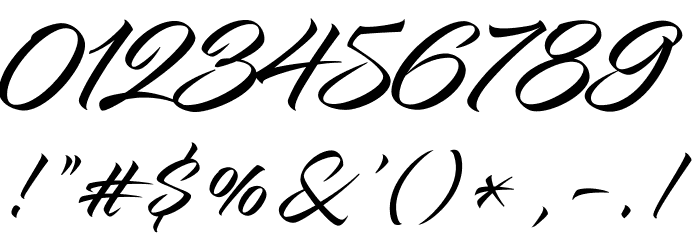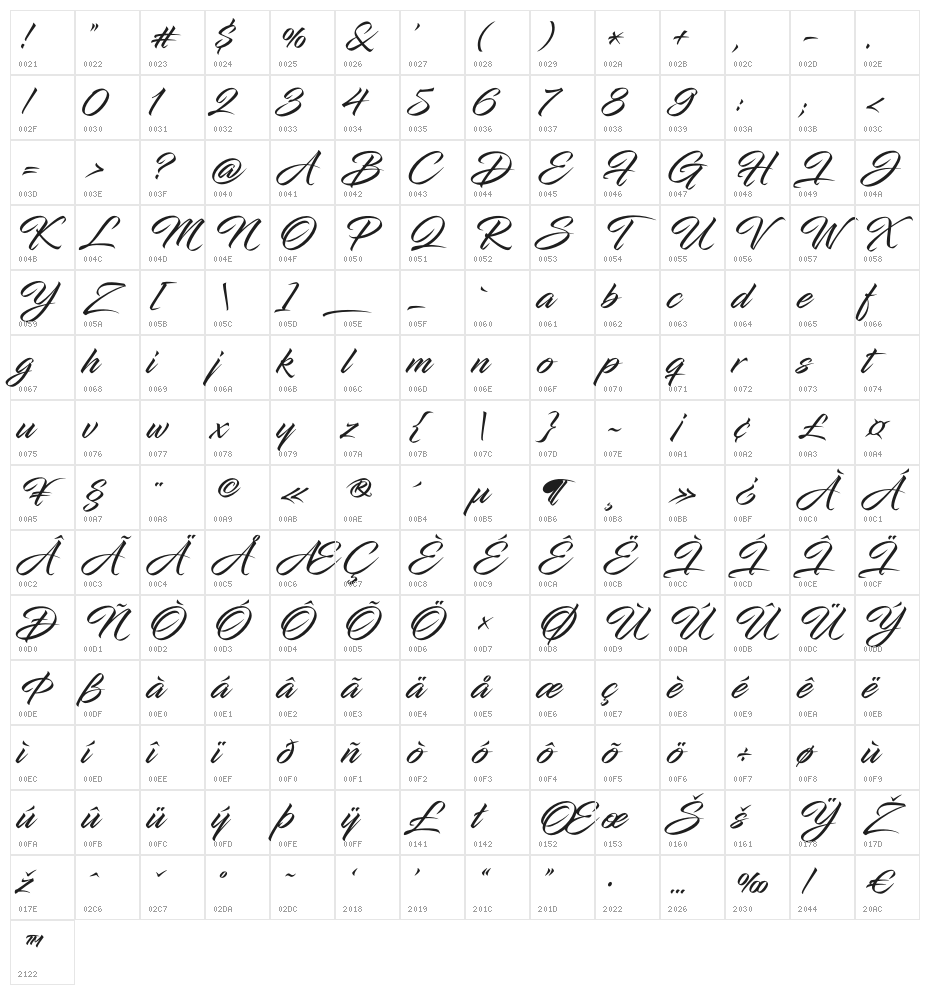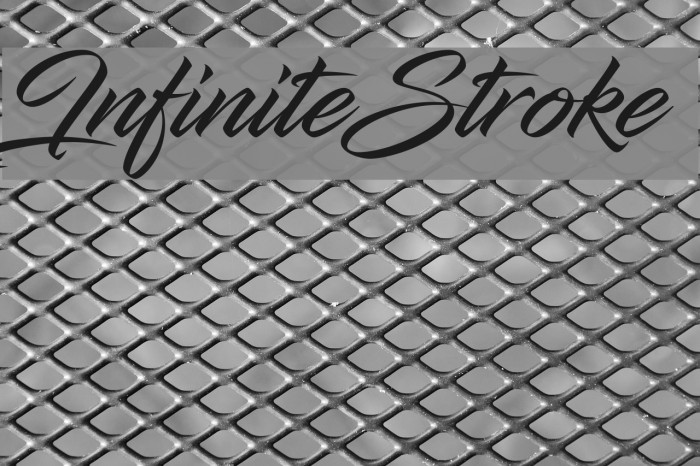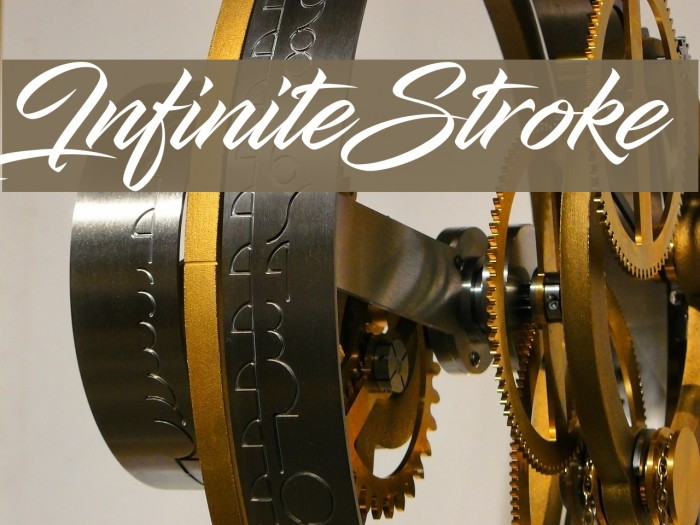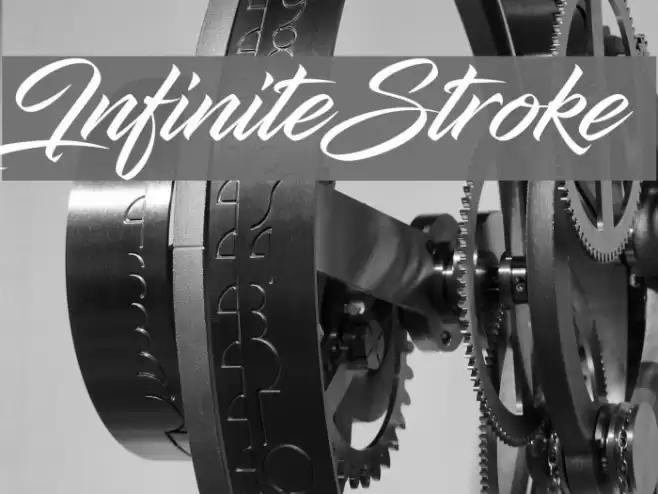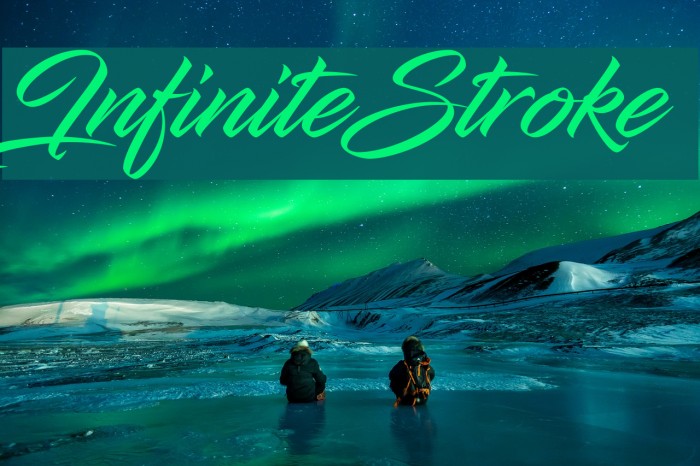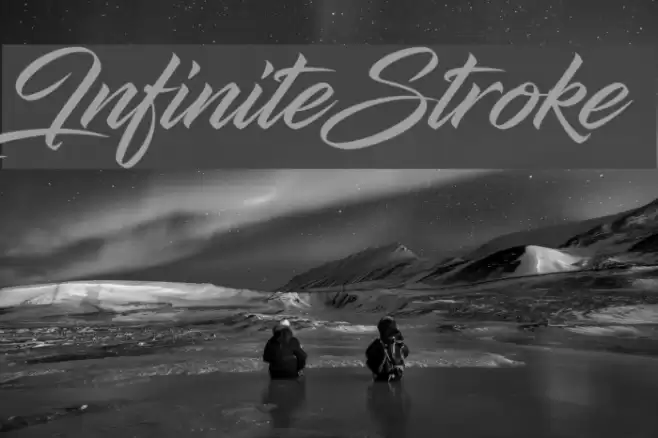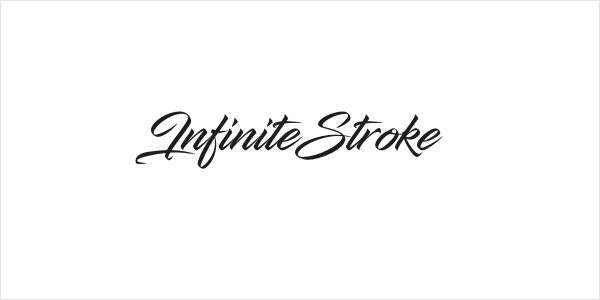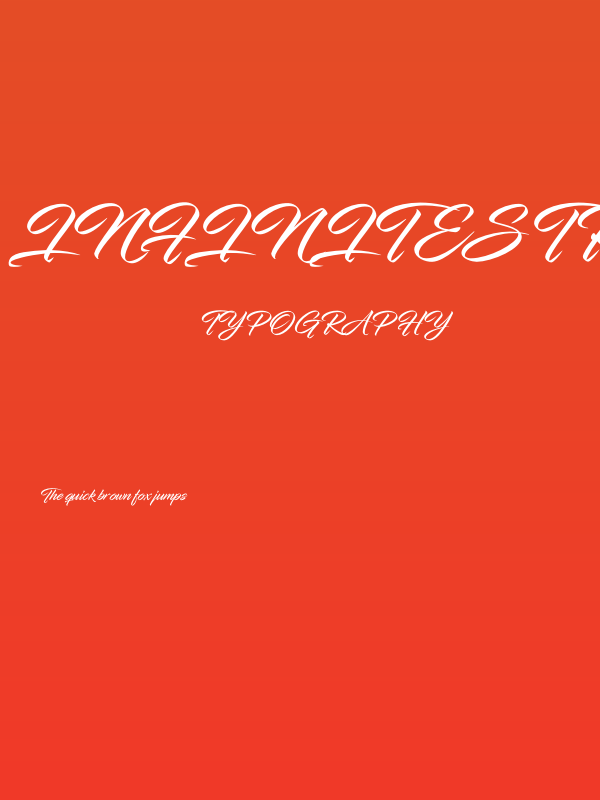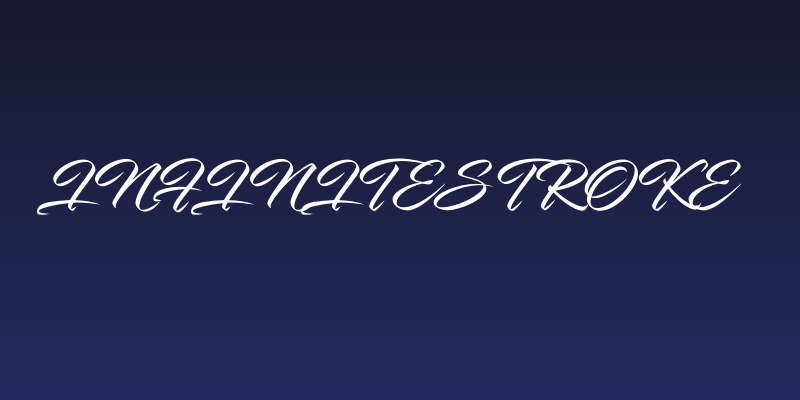
InfiniteStroke Font
InfiniteStroke Description
This font exudes elegance and fluidity, characterized by its cursive, handwritten style. The letters are interconnected with smooth, flowing strokes that mimic the natural motion of handwriting. The uppercase letters are slightly more ornate, with flourishes that add a touch of sophistication. The lowercase letters maintain a consistent slant, enhancing the script's dynamic appearance. Numbers and special characters are crafted with the same attention to detail, ensuring a cohesive look across all glyphs. The overall design is both stylish and legible, making it suitable for a variety of creative applications.